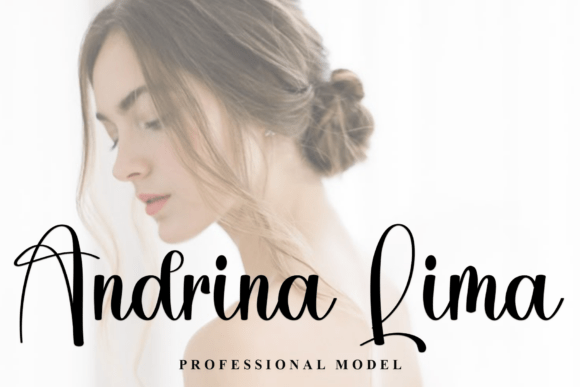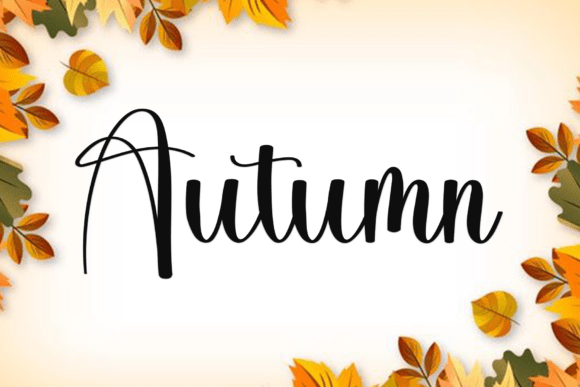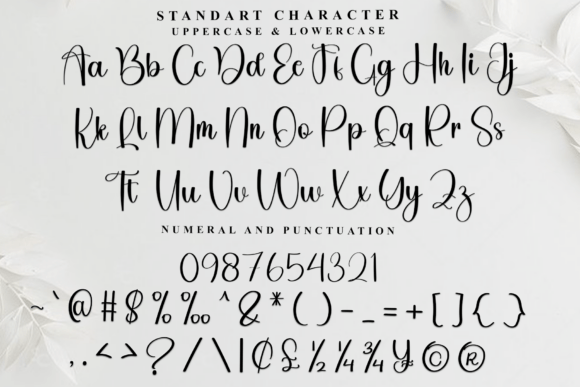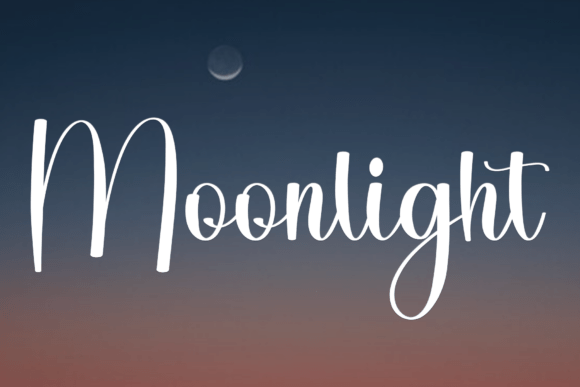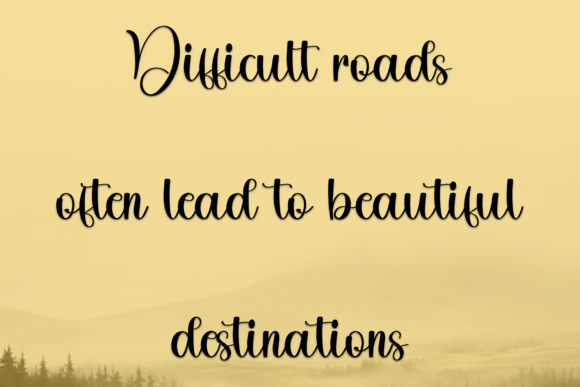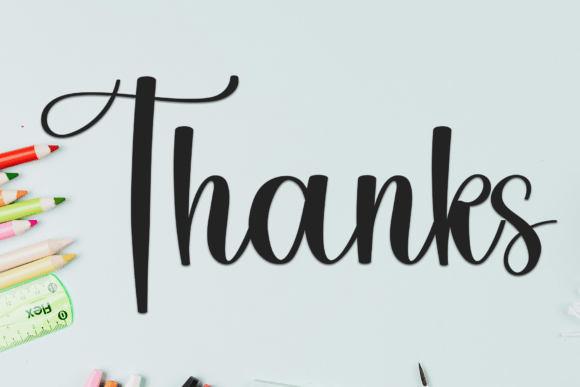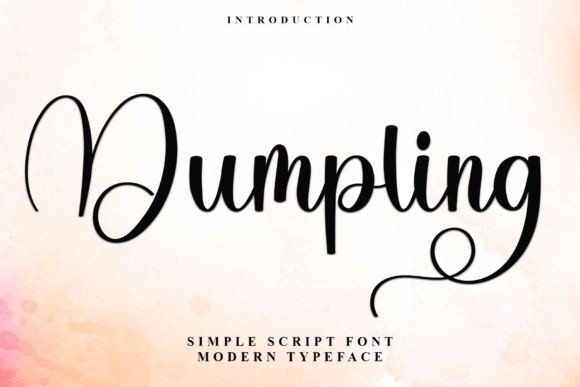
Dumpling Font: The Sweet and Friendly Handwritten Font for Your Designs
Are you a designer or crafter looking for a font that can add a touch of warmth and personality to your projects? Look no further than the Dumpling Font! This sweet and friendly handwritten font is perfect for a wide range of designs, from invitations and greeting cards to branding and packaging. In this article, we’ll take a closer look at the Dumpling Font and explore its unique features, uses, and benefits.
What is Dumpling Font?
Dumpling Font is a beautiful, handwritten font that is designed to bring a sense of friendliness and approachability to your designs. Its natural and unique style makes it incredibly fitting to a large pool of designs, from modern and trendy to vintage and rustic. The font’s sweet and gentle curves will make your designs stand out and leave a lasting impression on your audience.
Unique Features of Dumpling Font
So, what makes Dumpling Font so special? Here are some of its unique features:
- Handwritten style: Dumpling Font is a handwritten font that is designed to look like it was written with a pen or pencil. This gives it a personal and human touch that is perfect for designs that need to feel warm and inviting.
- Natural and unique style: The font’s natural and unique style makes it incredibly versatile and fitting to a wide range of designs. Whether you’re creating a modern and trendy design or a vintage and rustic one, Dumpling Font will fit right in.
- Easy to read: Despite its handwritten style, Dumpling Font is easy to read and understand. This makes it perfect for designs that need to communicate a message or tell a story.
- Highly legible: The font’s high legibility makes it perfect for use in a variety of contexts, from large headings to small body text.
Uses of Dumpling Font
Dumpling Font is a highly versatile font that can be used in a wide range of designs, including:
- Invitations and greeting cards: The font’s sweet and friendly style makes it perfect for invitations and greeting cards, where you want to make a good impression and show your personality.
- Branding and packaging: Dumpling Font can be used to create unique and memorable branding and packaging designs that stand out on store shelves.
- Social media graphics: The font’s friendly and approachable style makes it perfect for social media graphics, where you want to engage with your audience and build a connection.
- Blog and website design: Dumpling Font can be used to create beautiful and inviting blog and website designs that reflect your personality and brand.
Benefits of Using Dumpling Font
So, why should you use Dumpling Font in your designs? Here are some of the benefits:
- Adds a personal touch: The font’s handwritten style adds a personal touch to your designs, making them feel more human and relatable.
- Increases engagement: The font’s friendly and approachable style can increase engagement and build a connection with your audience.
- Versatile: Dumpling Font is highly versatile and can be used in a wide range of designs, from modern and trendy to vintage and rustic.
- Easily readable: The font’s high legibility makes it easy to read and understand, even in small sizes.
In conclusion, Dumpling Font is a sweet and friendly handwritten font that is perfect for designers and crafters looking to add a touch of warmth and personality to their projects. Its natural and unique style makes it incredibly fitting to a large pool of designs, and its highly legible and easy to read features make it perfect for use in a variety of contexts. Whether you’re creating invitations, branding, or social media graphics, Dumpling Font is a great choice. So why not give it a try and see the difference it can make in your designs?